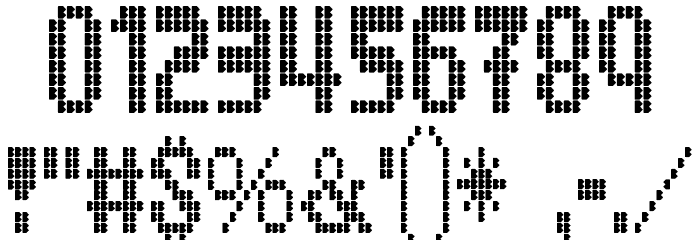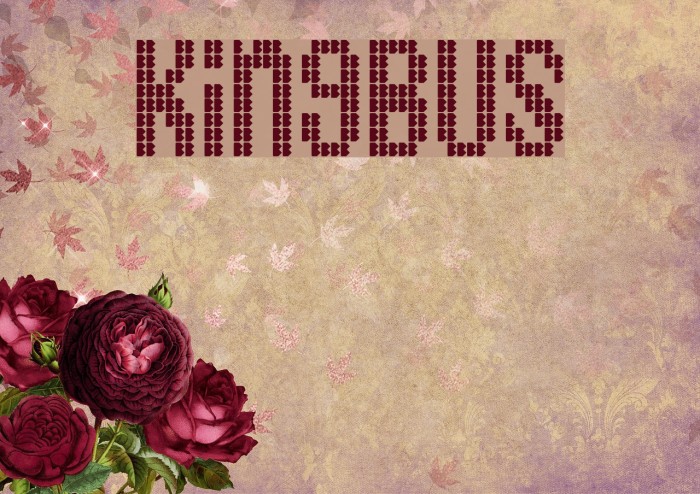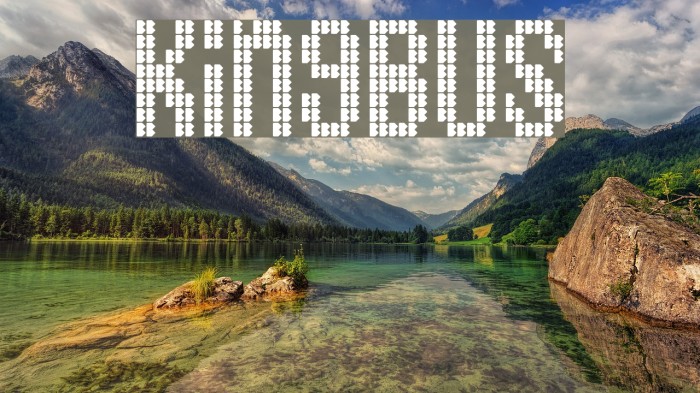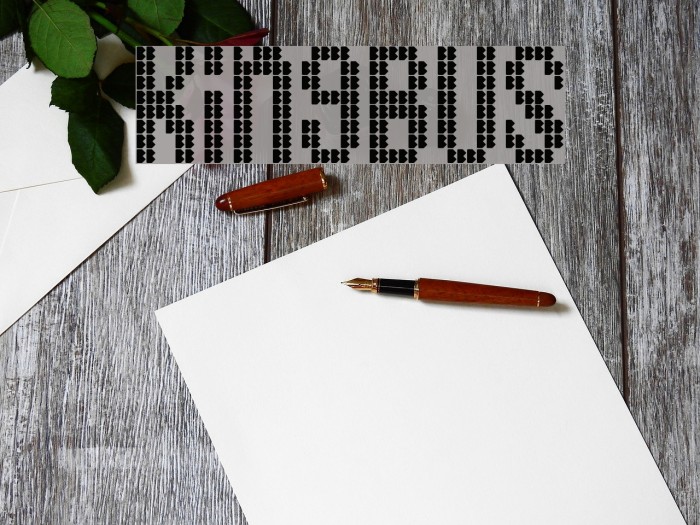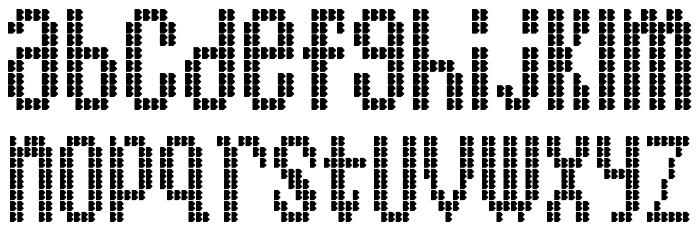
KingBus Font
KingBus Description
This font is a distinctive and bold display typeface composed of small, square pixel-like elements that form each character. The geometric and modular design gives it a digital, retro feel reminiscent of early computer or arcade game graphics. The uppercase and lowercase letters maintain a consistent height, contributing to a uniform appearance. Numbers and special characters are crafted with the same pixelated style, ensuring cohesion across all elements. The font's unique structure makes it stand out, ideal for projects that require a tech-savvy or nostalgic aesthetic.
| Overall Style | Retro, Digital |
| Proposed Projects | Perfect for video game graphics, tech-themed posters, digital art projects, and retro-style branding. |